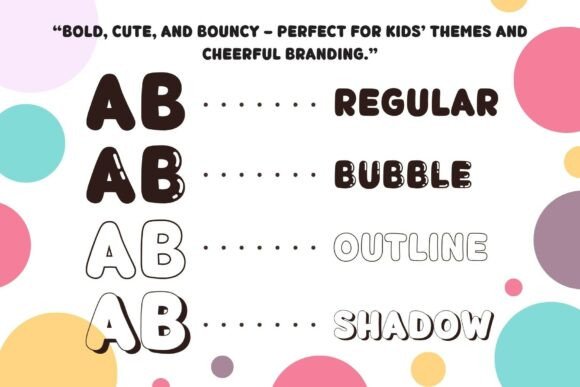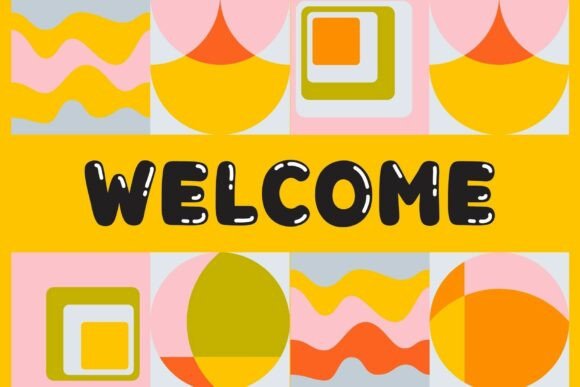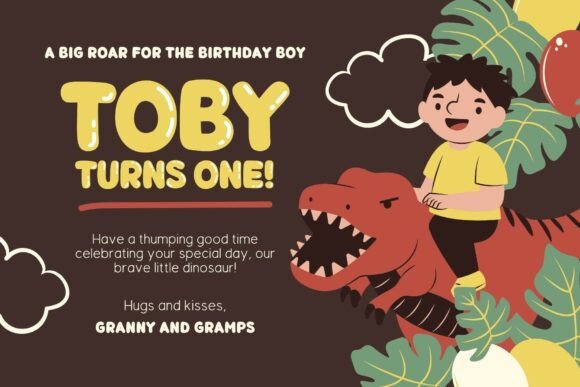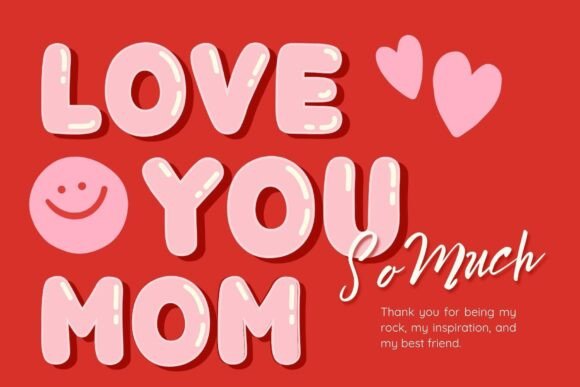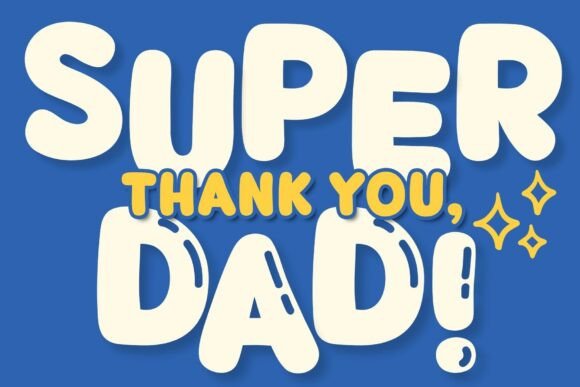
Introduction to Fox Chubby Font
Fox Chubby is a sweet and bubbly font family crafted with love for designers, crafters, and creatives who want to add joy and personality to their projects.
It comes with 4 charming styles โ Regular, Bubble, Outline, and Shadow โ that work beautifully for playful branding, kidsโ products, SVG designs, and printable crafts โจ Whatโs Inside : Fox Chubby Regular โ A clean and chunky version for bold statements and fun titles.
Key Features of Fox Chubby Font